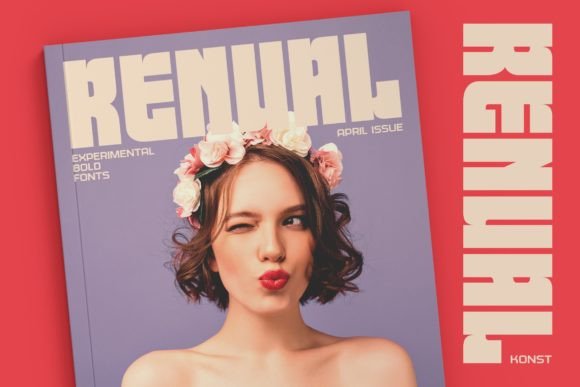
In a realm of visual aesthetics, where creativity thrives and individuality reigns, allow me to introduce you to Renual, a display font that shatters the boundaries of ordinary typography. A brainchild of konstantinestudio, Renual is not just a font; it's an experience, a visual symphony that captivates and enchants.
With Renual, you have the power to turn your words into art, to transform mundane text into captivating statements. Be bold, loud, and experimental—let your imagination run wild as you explore the boundless possibilities that Renual offers.
This font family is a rare gem, a collection of characters that you won't find anywhere else. Its unique style, inspired by the vibrant energy of urban culture, Instagram trends, and the ever-evolving world of music, makes it the perfect choice for those who dare to stand out, to make a statement, to leave an indelible mark.
Picture this: Your urban poster design, infused with the raw energy of Renual, commands attention, drawing eyes like a magnet. Your Instagram branding, adorned with Renual's edgy charm, becomes a magnet for engagement, a beacon of creativity that captivates your audience.
In the realm of music branding, Renual takes center stage, lending its bold presence to album artwork, music videos, and logos. It's a font made for musicians, for artists who live and breathe their craft, who pour their heart and soul into every note. Renual captures the essence of their passion, translating it into a visual masterpiece that resonates with their audience.
And oh, the magazines—those glossy pages come alive with Renual's dynamic flair. Fashion spreads, album reviews, and feature articles take on a new dimension, a visual feast that keeps readers engaged from cover to cover.
But Renual's versatility extends far beyond these realms. It's a font that finds its home in a myriad of creative expressions: game design, NFT projects, and countless other ventures where imagination reigns supreme.
With Renual, you have the power to break free from the mundane, to embrace the extraordinary. It's more than just a font; it's a gateway to a world of limitless creativity, where your vision takes center stage.
So, dear wanderer of the digital realm, let Renual be your muse, your creative compass as you navigate the vast ocean of possibilities. Together, you'll create something truly remarkable, something that will leave an enduring legacy in the annals of visual storytelling.